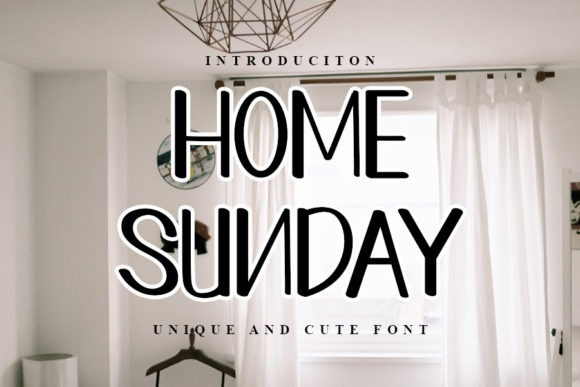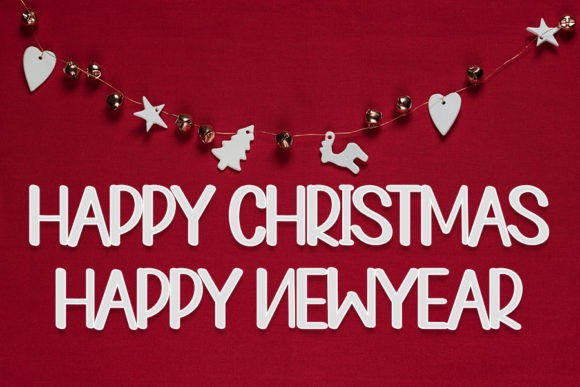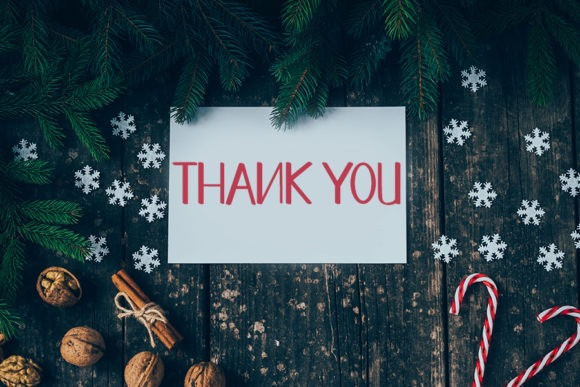
Home Sunday Display Font
Home Sunday is a modern and stylish handwritten font with straight and narrow lines. It has sans serif characteristics which make this font’s readability strong.